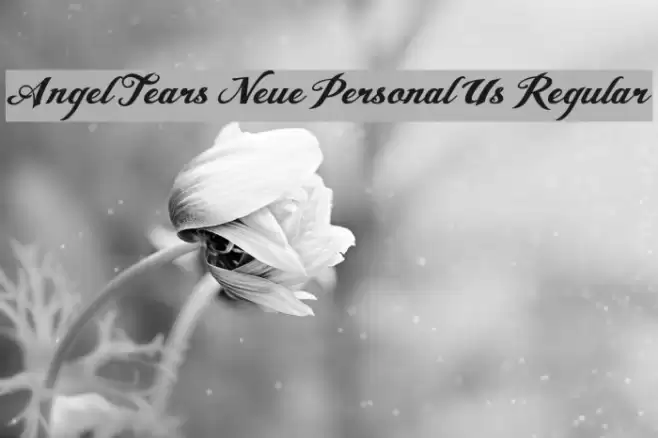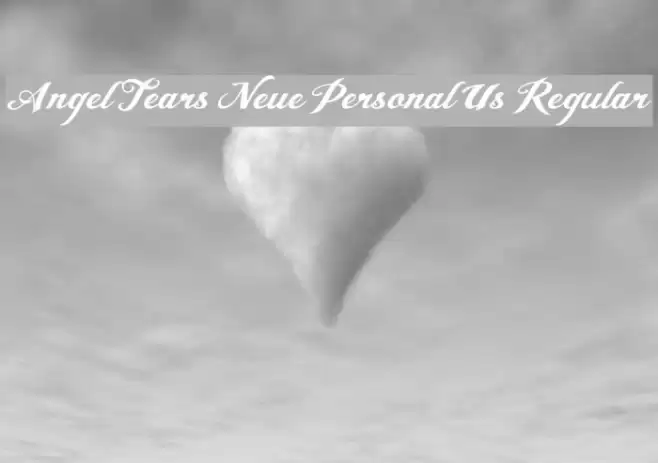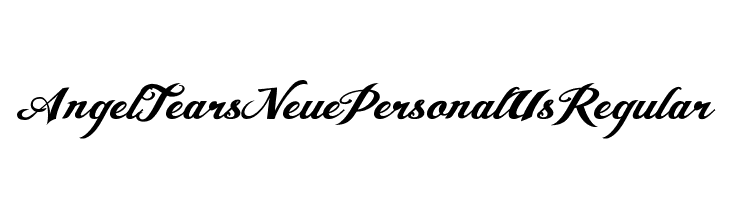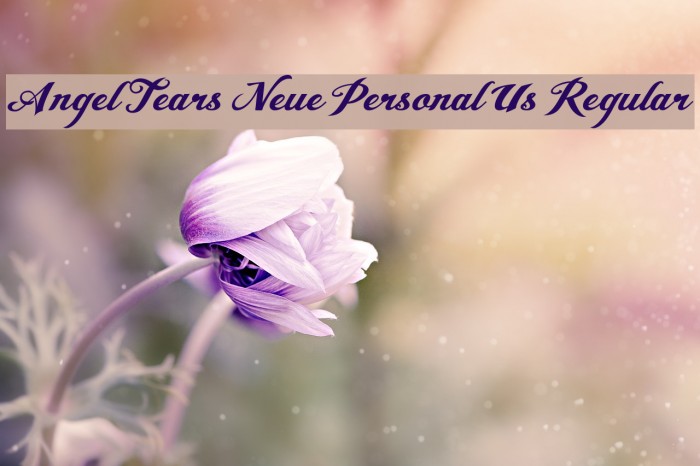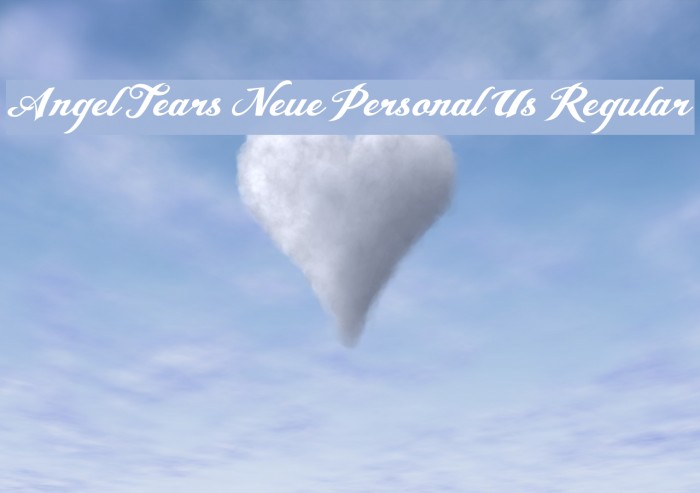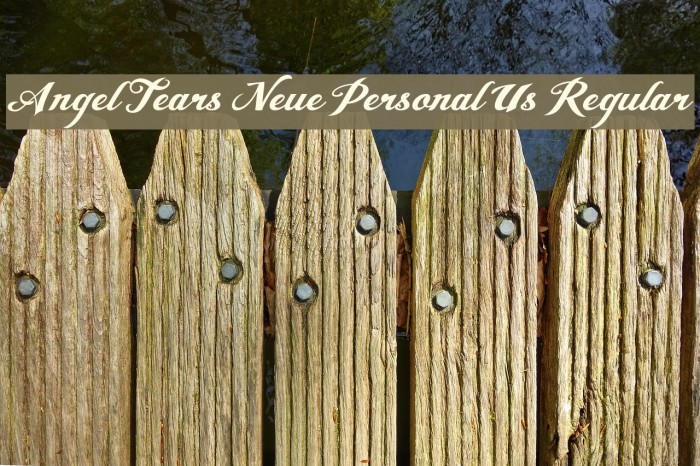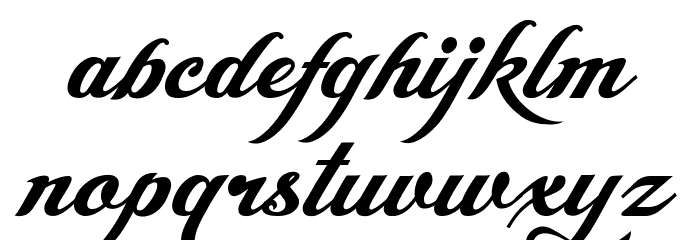
Angel Tears Neue Personal Us Regular Font
Angel Tears Neue Personal Us Regular Description
This font features a dramatic and elegant script style, characterized by its flowing and interconnected letterforms. The uppercase letters exhibit a bold and ornate design, with intricate curves and flourishes that add a sense of sophistication and grandeur. The lowercase letters maintain a consistent style, with smooth transitions and a slightly italicized appearance, enhancing the overall fluidity of the text. The numerals and special characters are designed to match the ornate style of the alphabet, ensuring a cohesive look across all text elements. This font is ideal for projects that require a touch of elegance and artistic flair.
An elegant and ornate script font with flowing, interconnected letterforms from Uncategorized fonts.
- Proposed Projects: Wedding invitations, luxury branding, elegant signage, artistic posters.
- Use Case: Logos, Headlines, Invitations